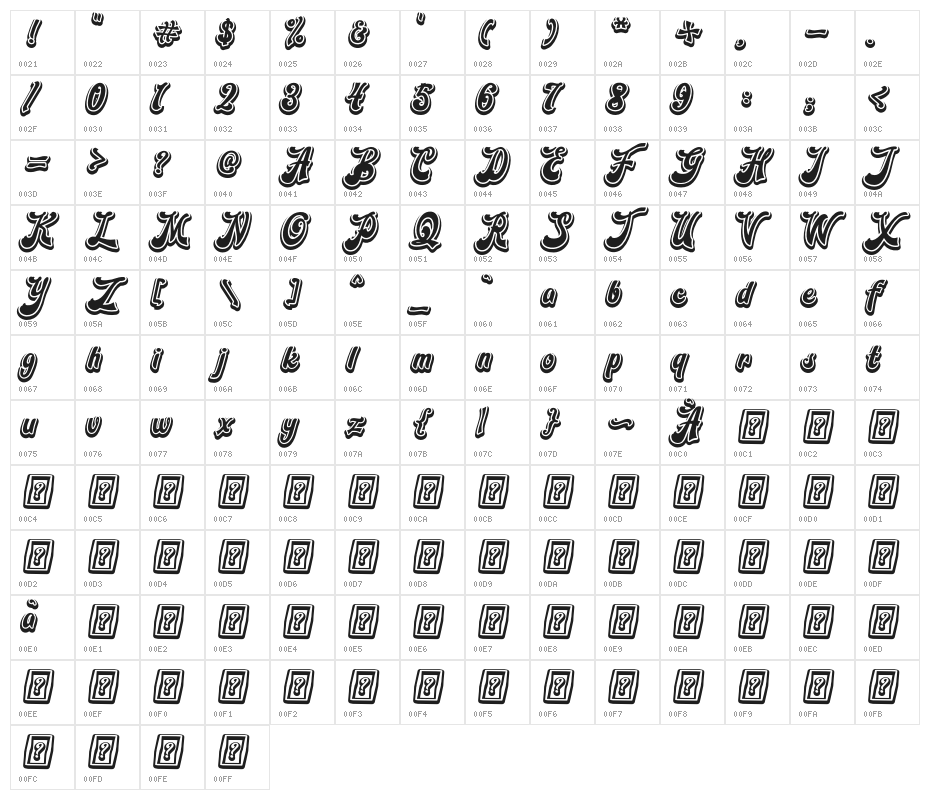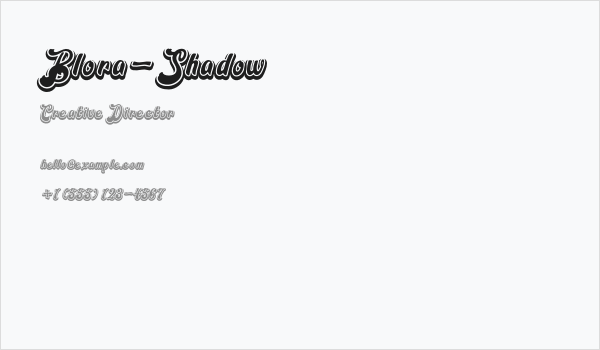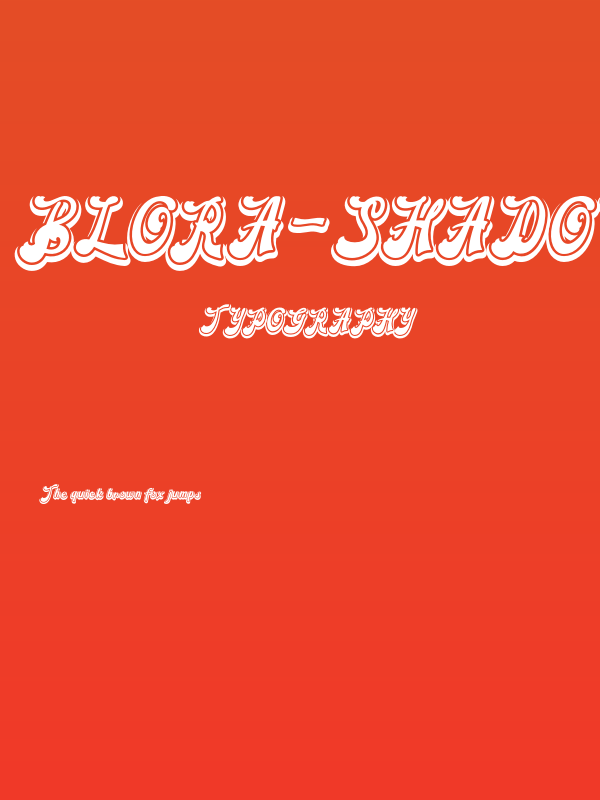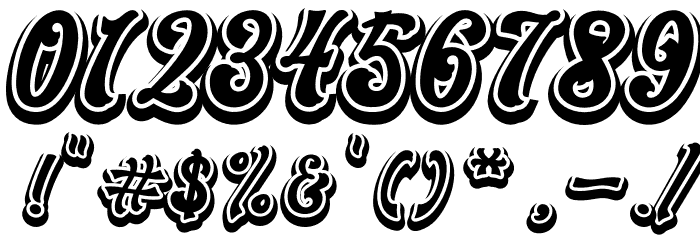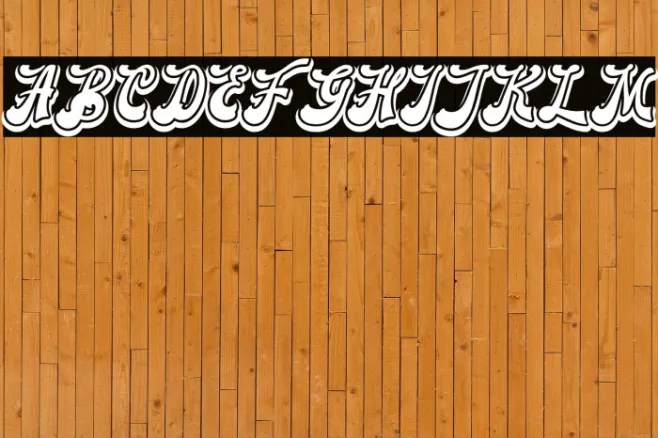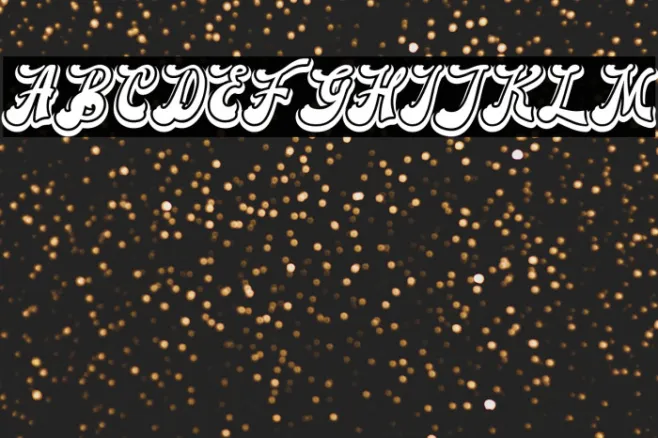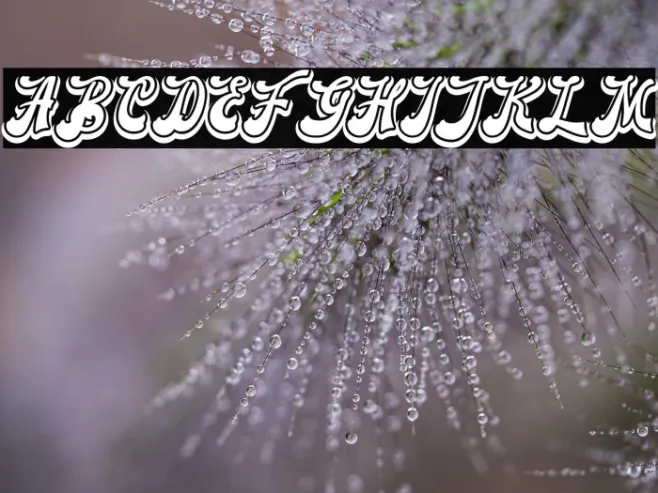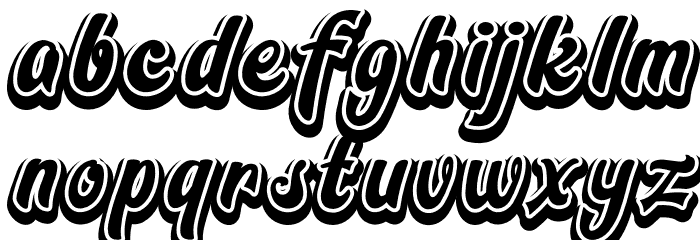
Blora-Shadow Font
Blora-Shadow Description
This font features a bold and dynamic script style with a distinct shadow effect that adds depth and dimension to each character. The letters are interconnected with smooth, flowing curves, creating a sense of movement and elegance. The uppercase and lowercase letters maintain a consistent style, while the numerals and special characters complement the overall design. The shadow effect enhances the visual impact, making it ideal for eye-catching designs.